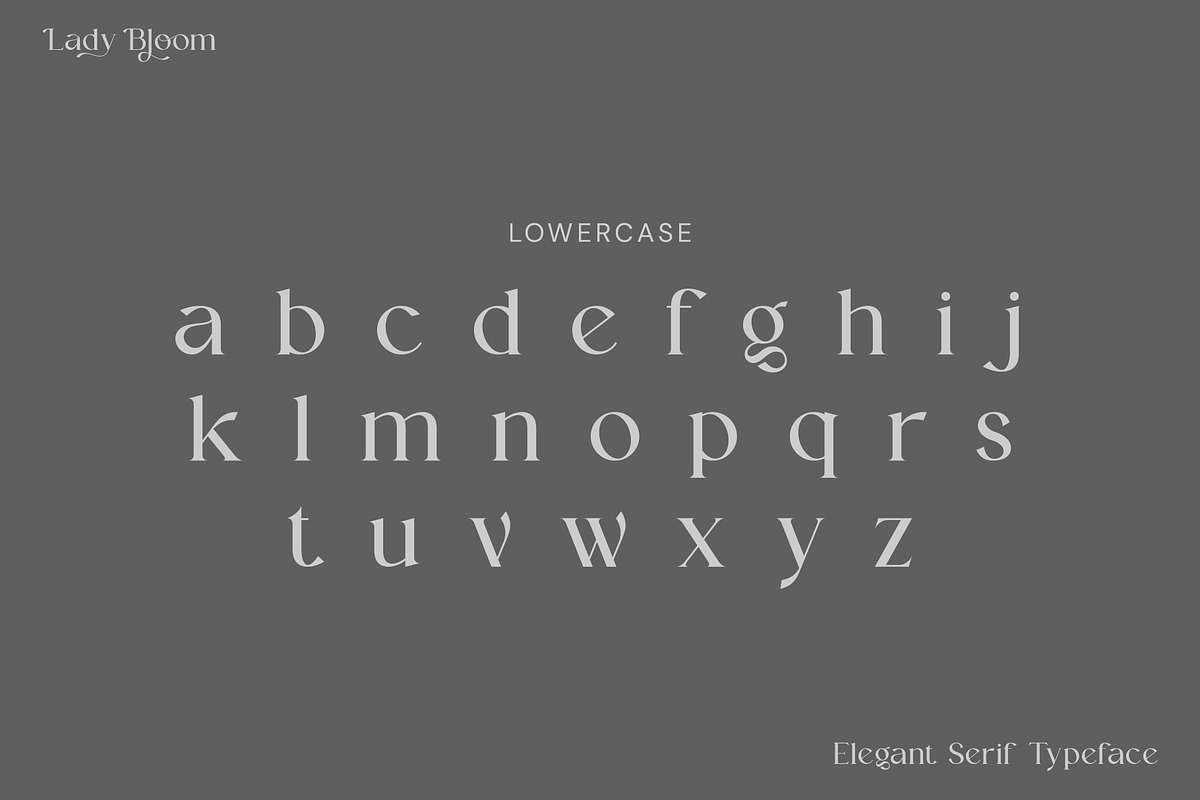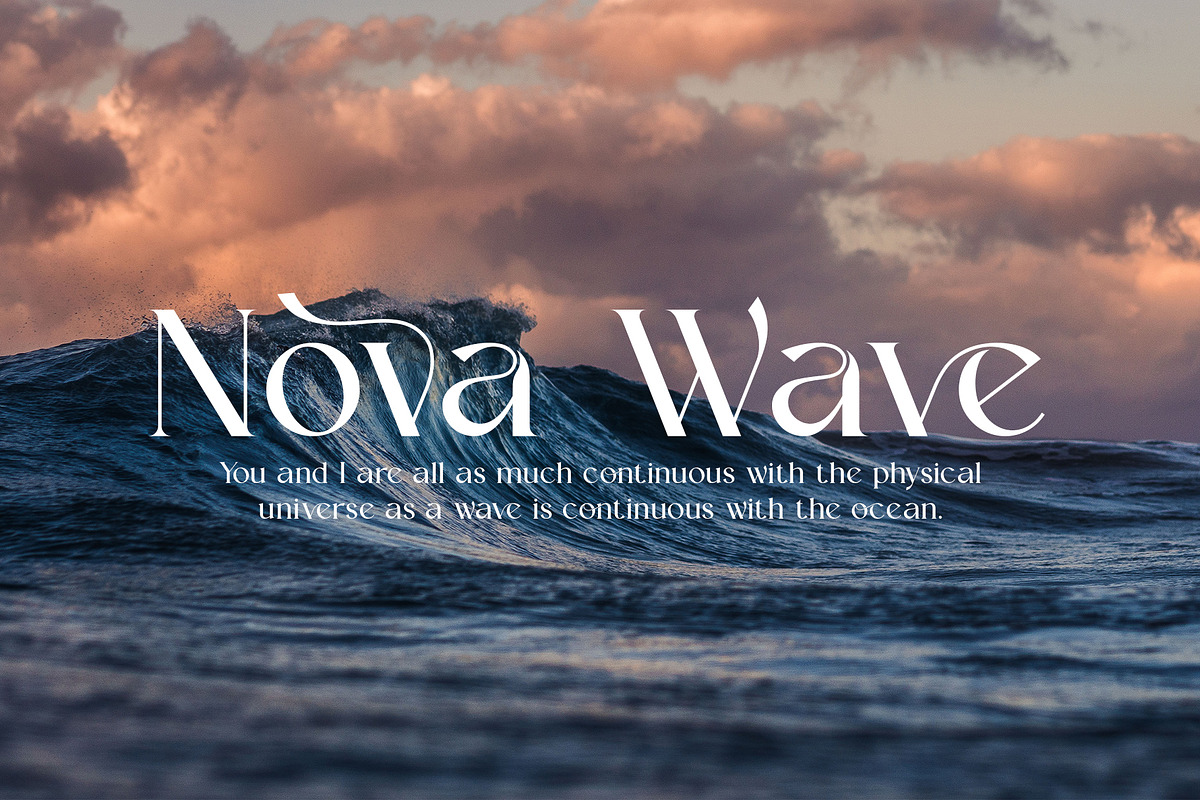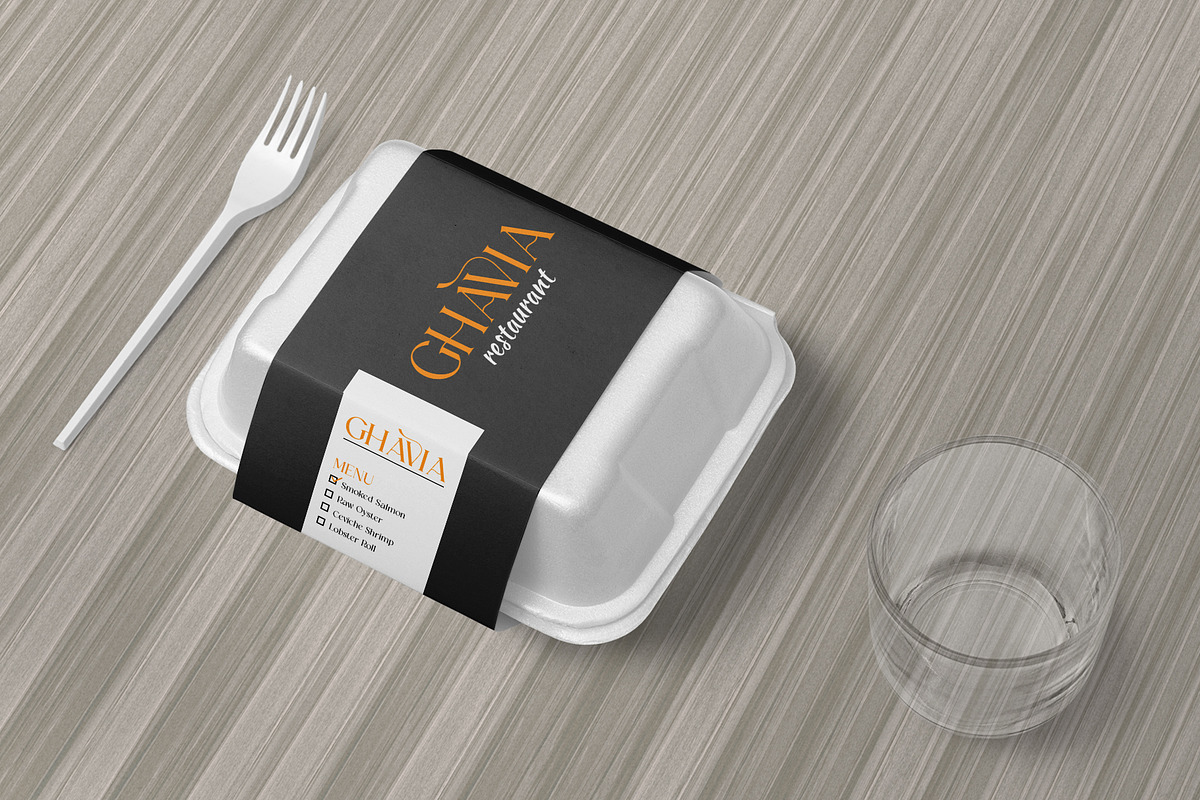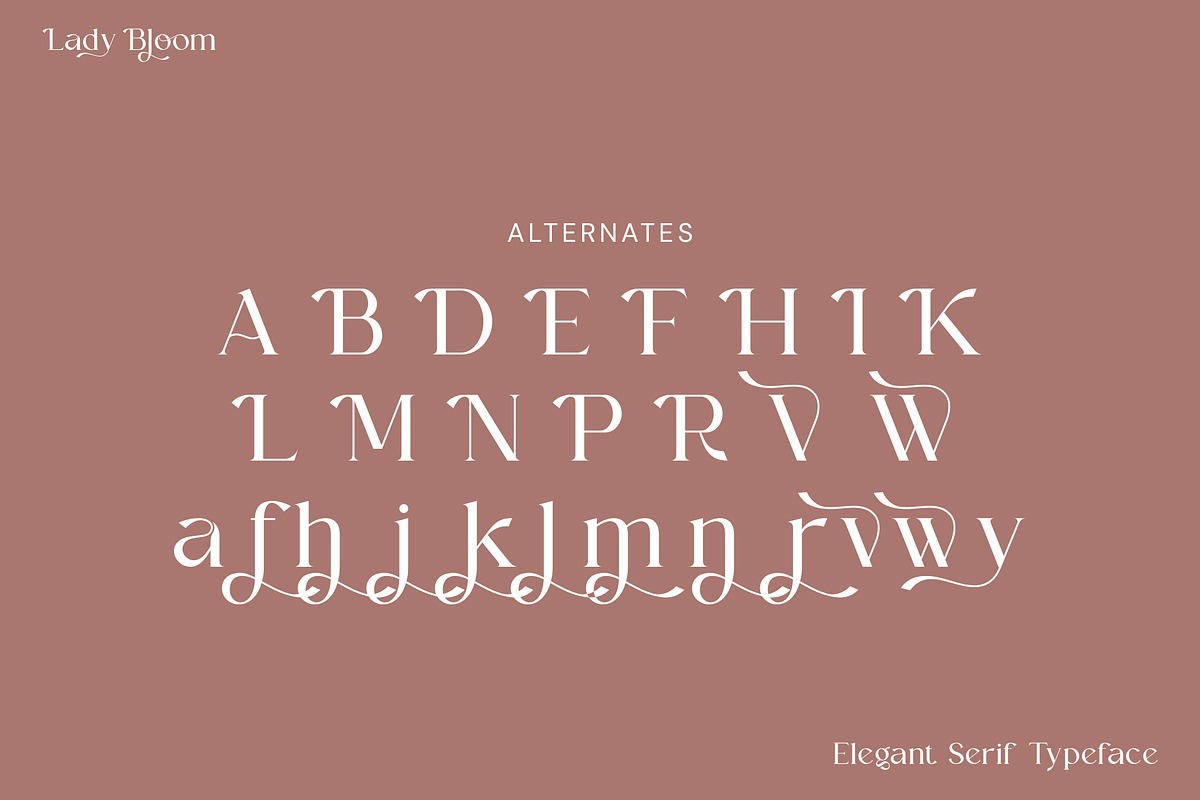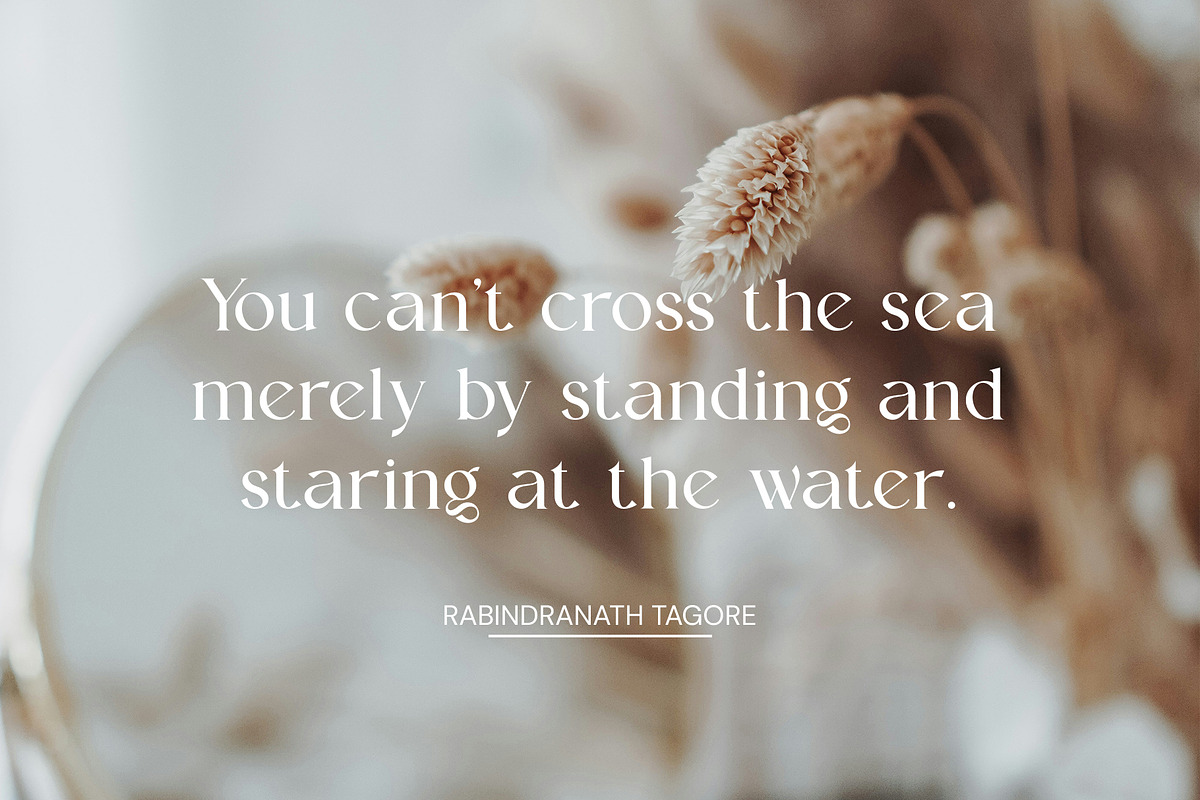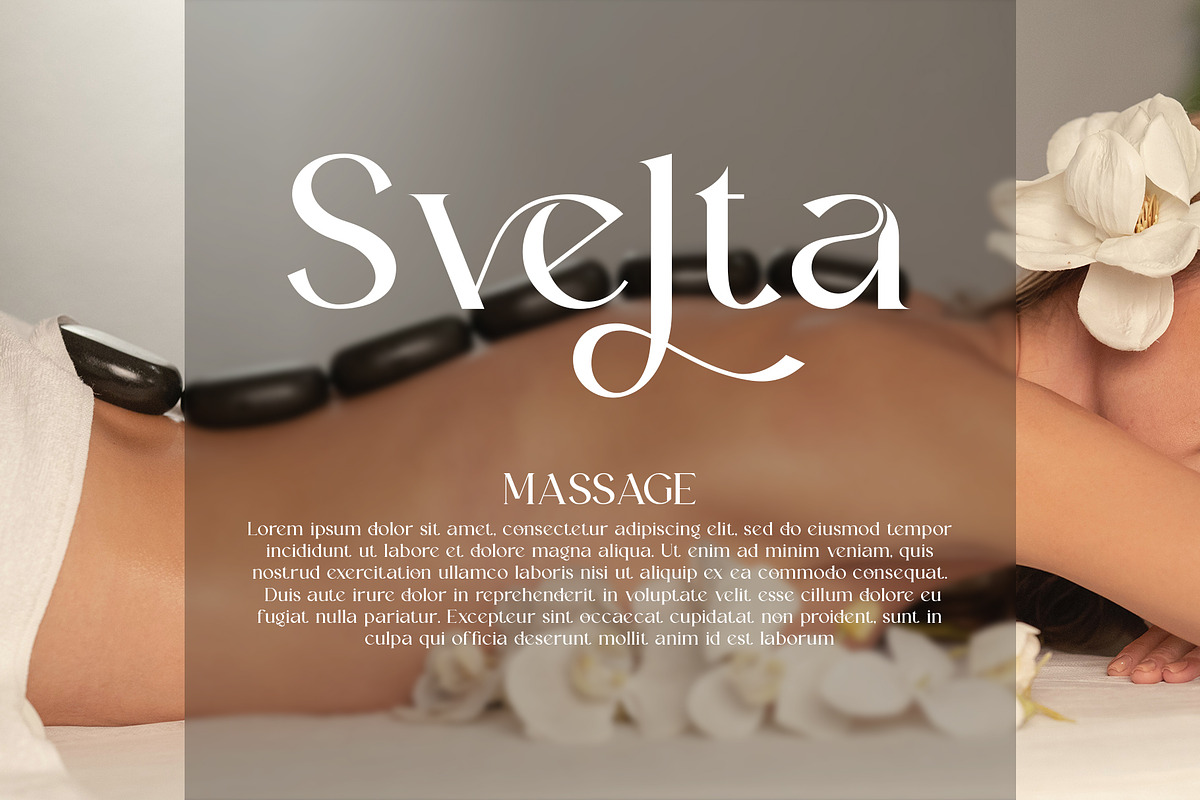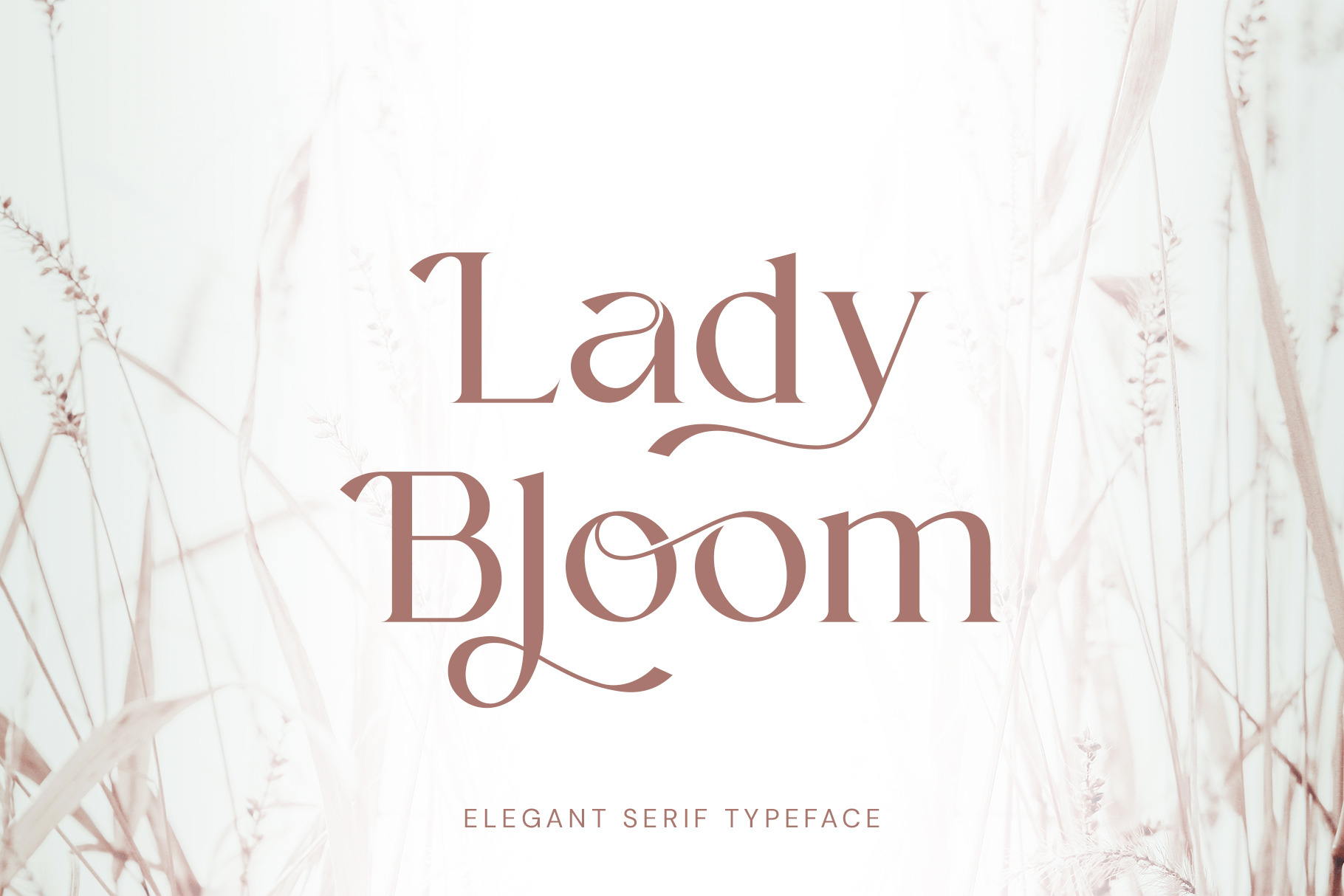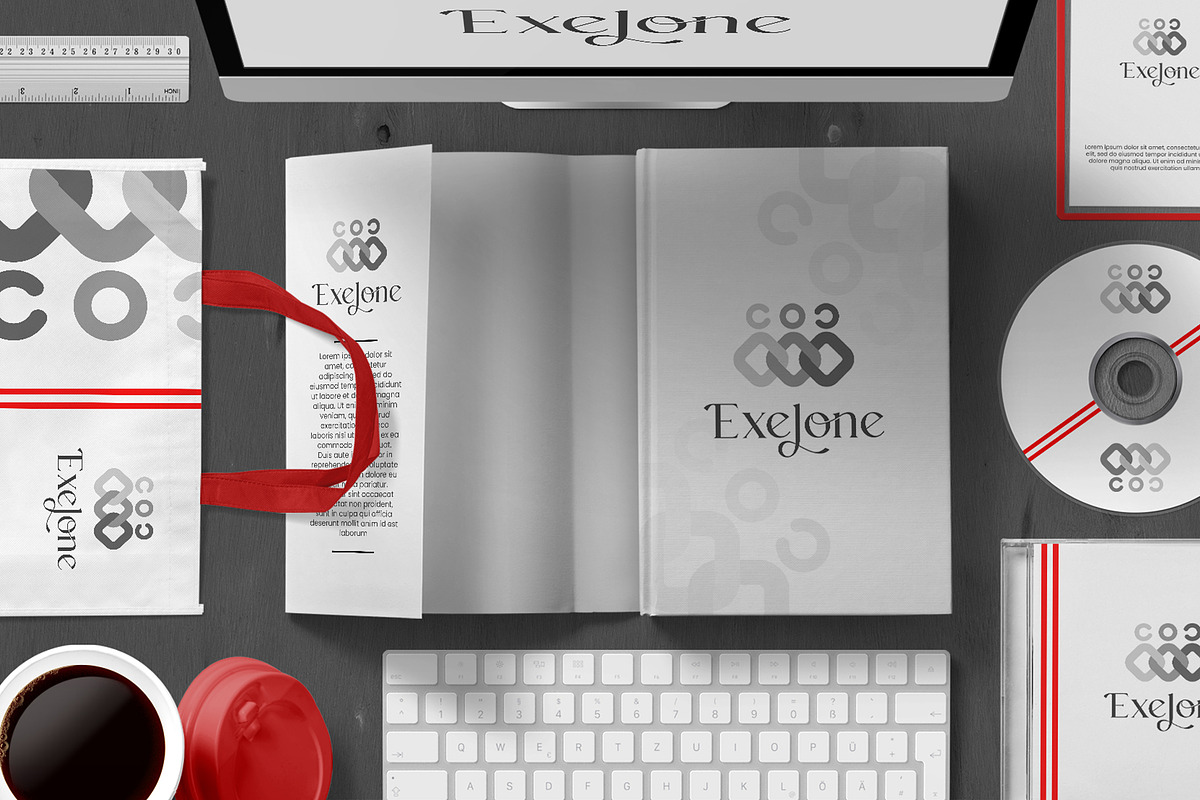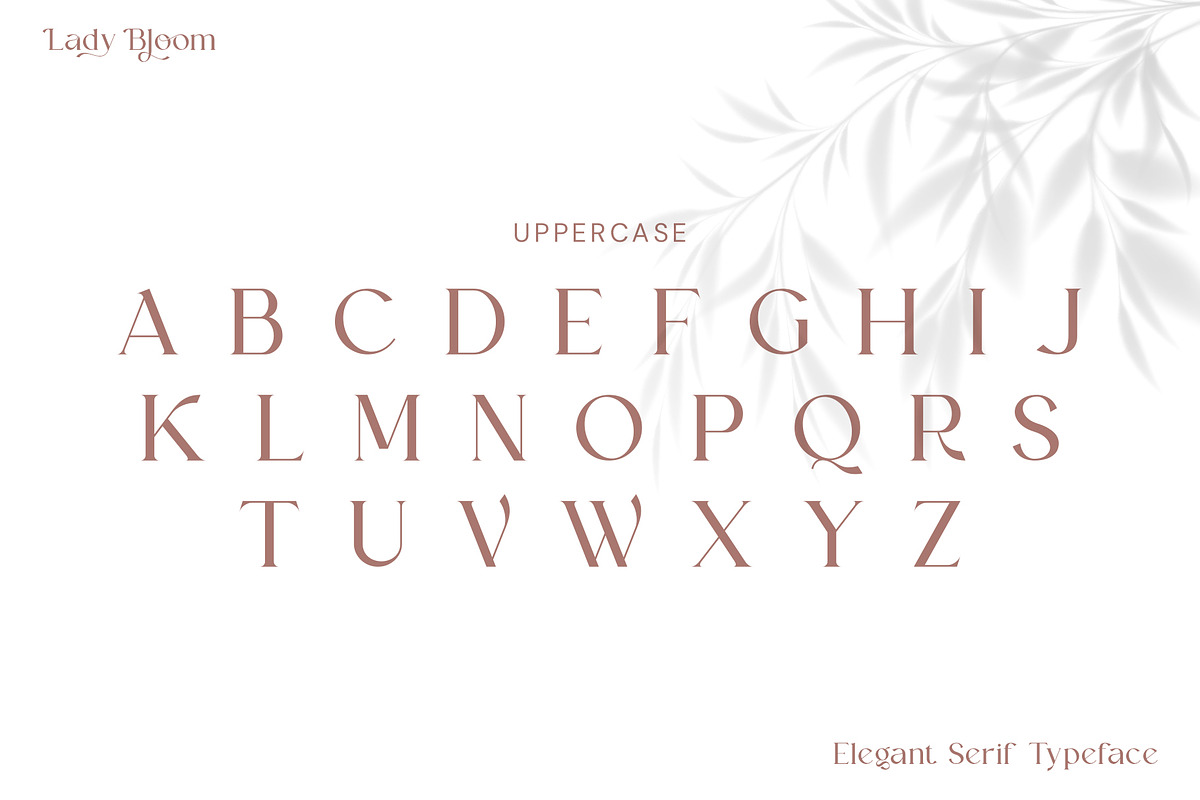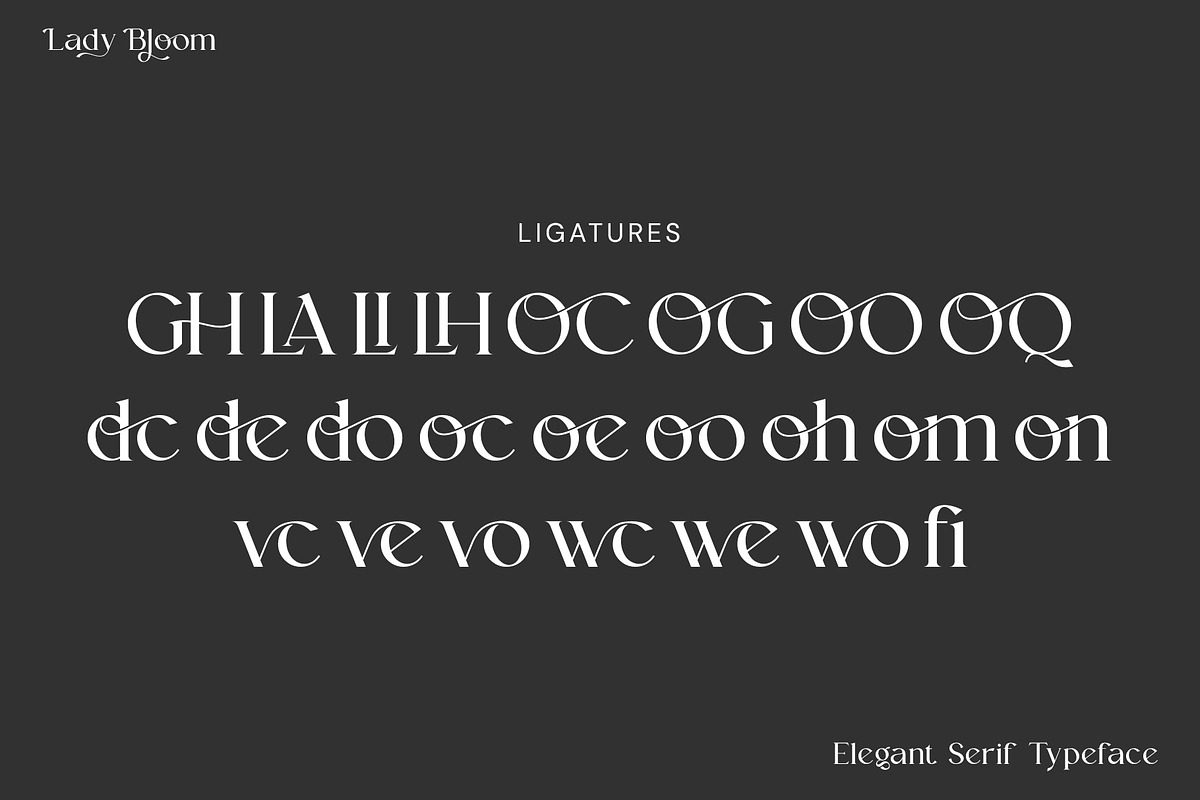
Lady Bloom Serif Font
Lady Bloom Serif is a balanced, smooth, elegant and stylish serif font. He has a beautiful character. It fits perfectly with invitation card designs, company logos, movie titles, movie names, business cards, book titles, brand names and various other designs. Lady Bloom Serif is a subtle serif font that exudes sophistication and elegance. Its stylish alternations and ligatures make this font the perfect partner for any project.